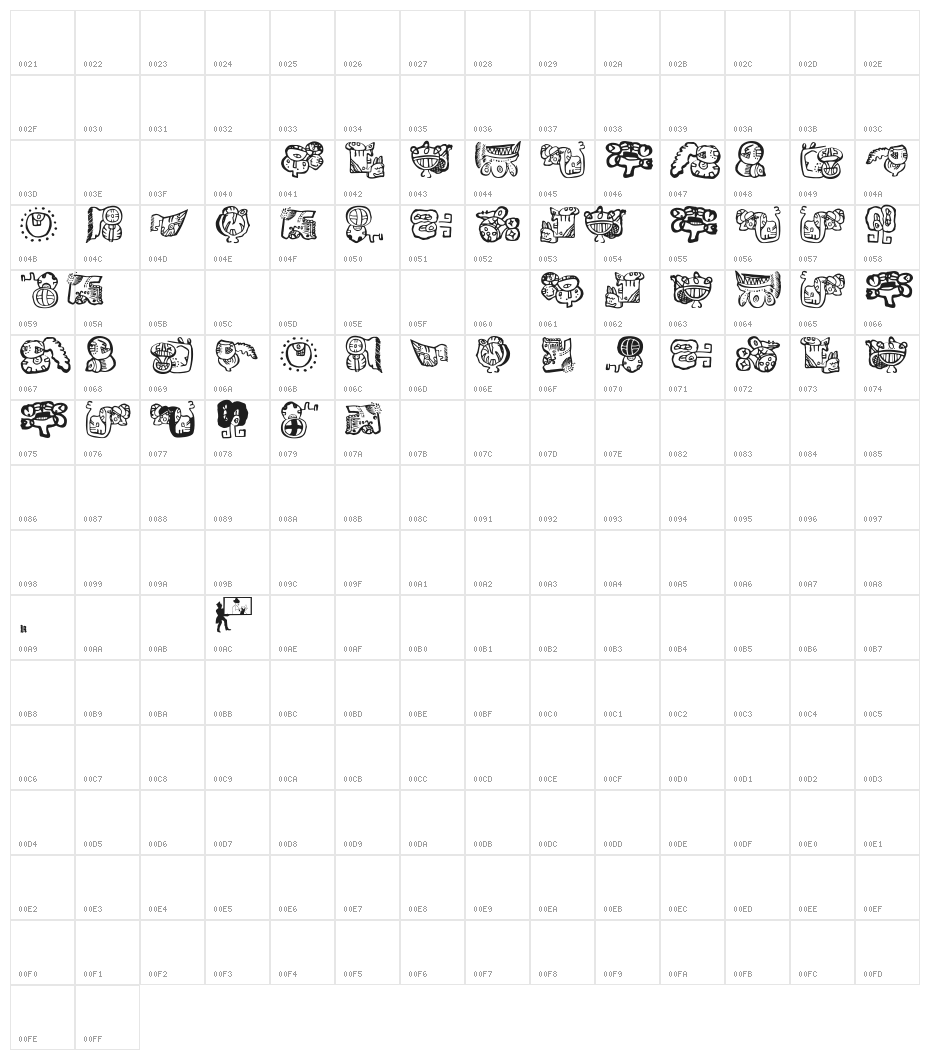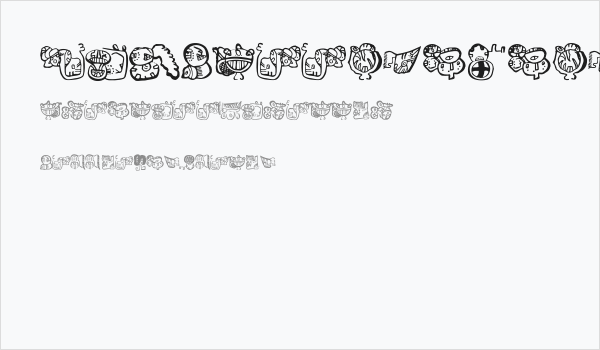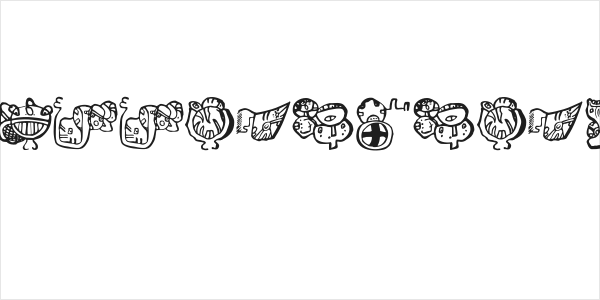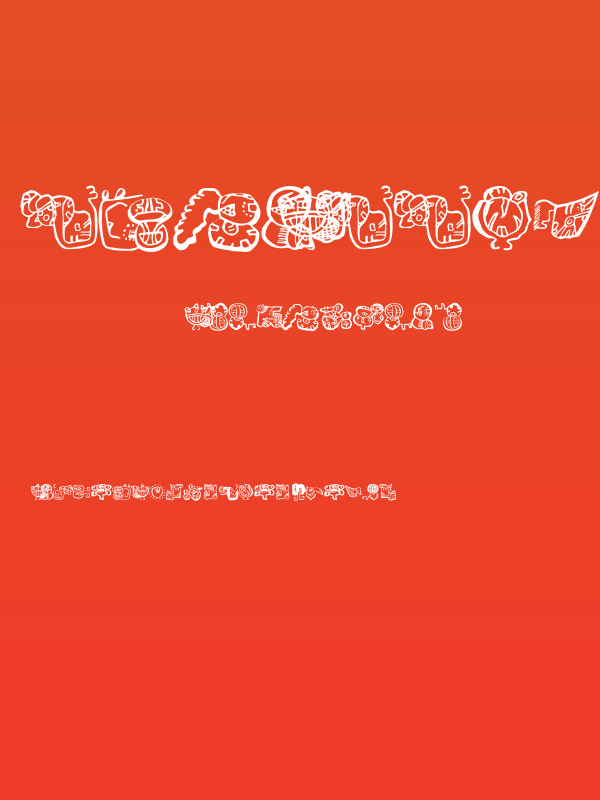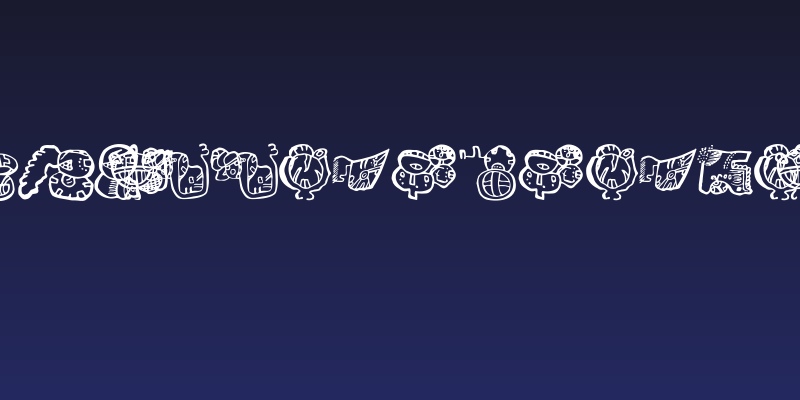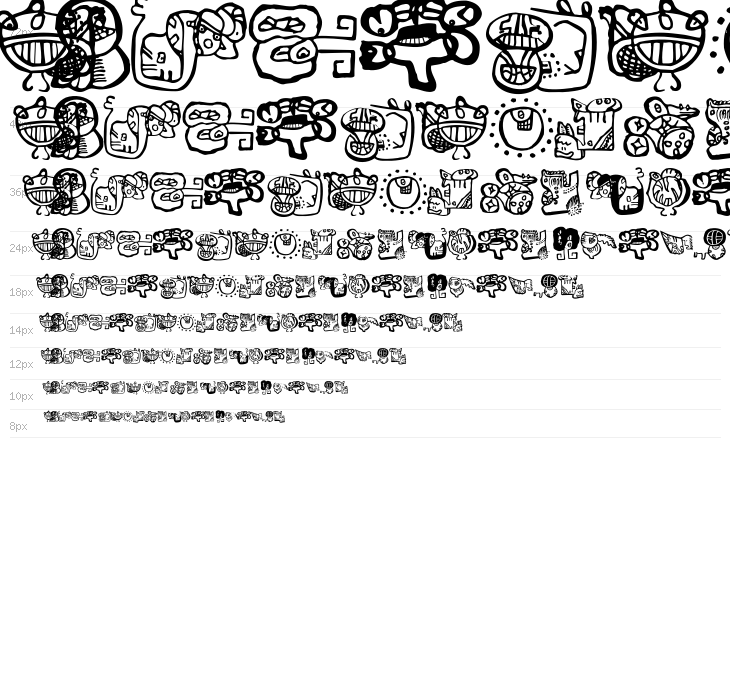
EighteenMayanMonths Font
EighteenMayanMonths Description
This font is a highly decorative and intricate design inspired by ancient Mayan glyphs. Each character is uniquely crafted to resemble traditional Mayan symbols, featuring complex patterns and detailed line work. The characters are bold and visually striking, with an emphasis on artistic expression rather than readability. This font captures the essence of ancient Mayan culture, making it ideal for projects that require a historical or cultural theme. The characters are evenly spaced, but the elaborate designs give them a dense appearance. The font is best suited for display purposes where the visual impact is more important than legibility.
| Use Case | Logos, Posters, Art projects |
| Proposed Projects | Ideal for cultural exhibitions, historical documentaries, themed events, and artistic projects that require a touch of ancient Mayan aesthetics. |